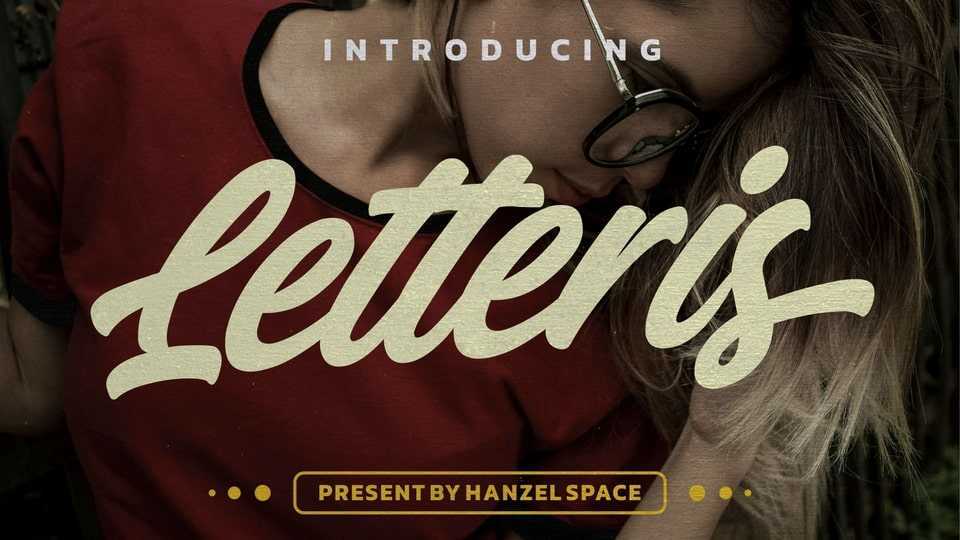
Download Letteris font, a modern script font inspired by a bold lettering font with a touch of vintage look and feel that looks great for lettering which you can create instantly.